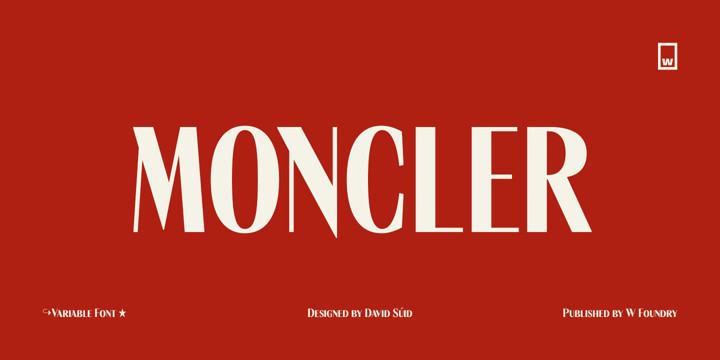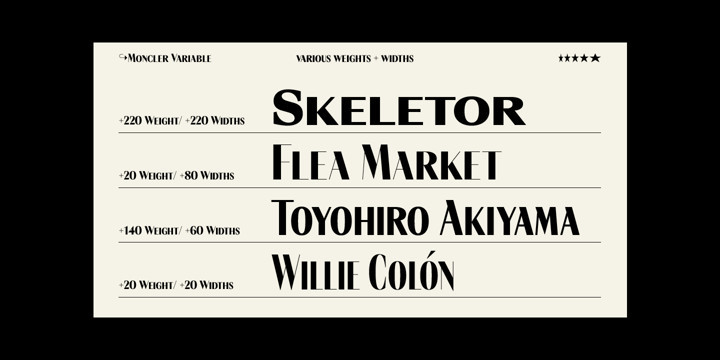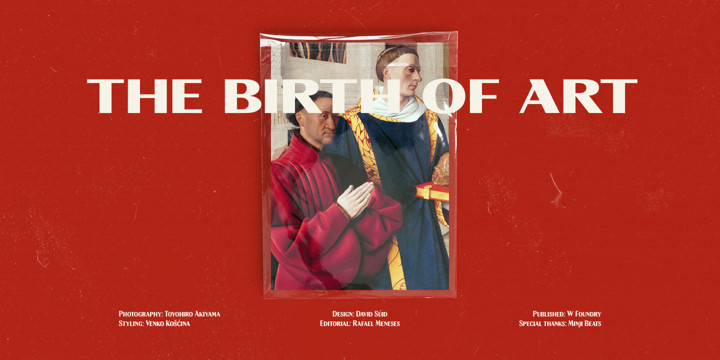
Moncler Font
From the universe of horror fiction literature, Dracula, carrier of the undead curse, is one of the most exciting and inspiring characters. Inspired by the classic novel, Moncler sets to explore into the renaissance art movement, its shapes, and personality.
The outcome is a Variable Font with big contrast and 220+ weights and widths, from Condensed to Expanded, and Light to Heavy.
Moncler is a dramatic looking font, its main features are its alternative symbols and punctuation set, and small-caps as lowercase, perfect for more dramatic titles and graphic designs.